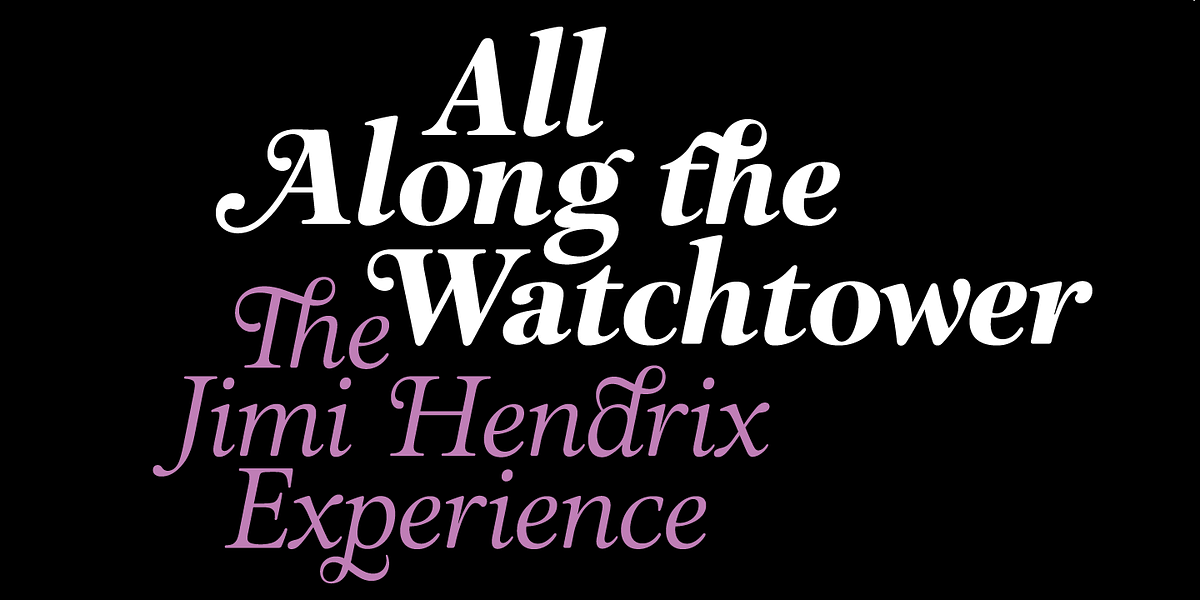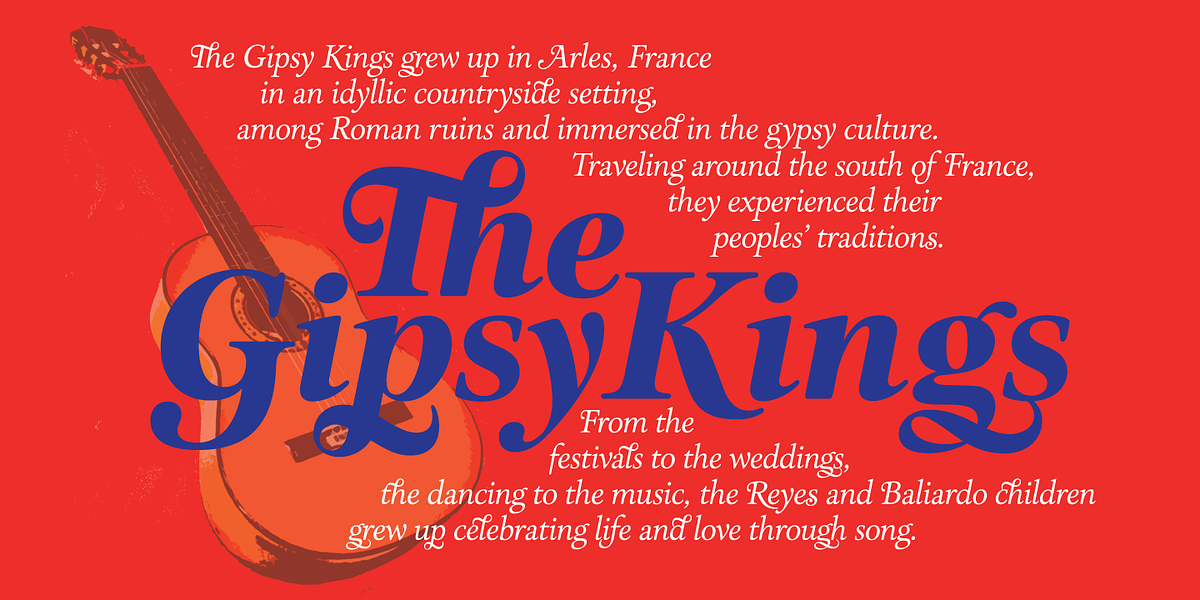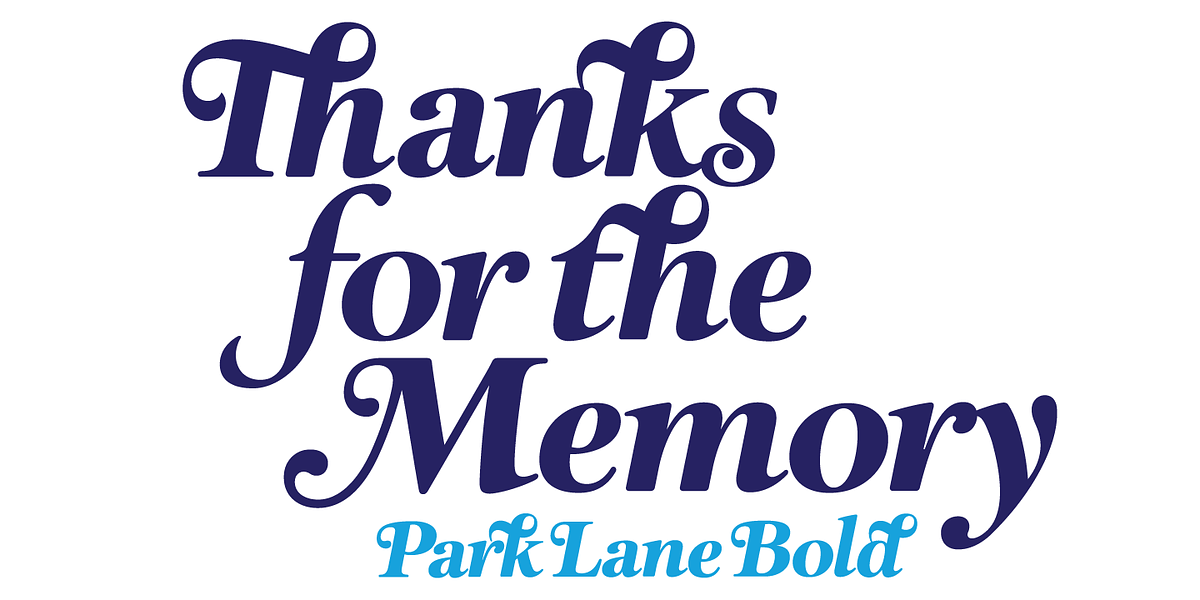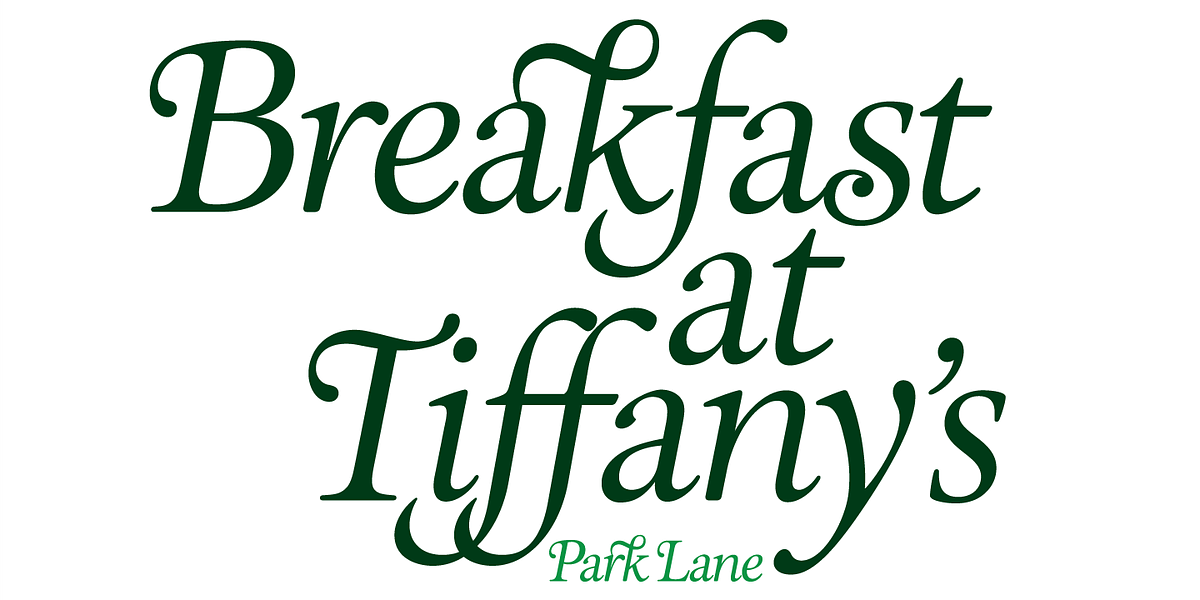
Park Lane
This font is a classic italic serif with a formal feel. It features swash capitals and lowercase characters, which can be used to create unique ligatures when connected to preceding letters. It comes in two weights: light and bold. This typeface would be suitable for headlines, branding, and other display uses where an elegant and classic look is desired.